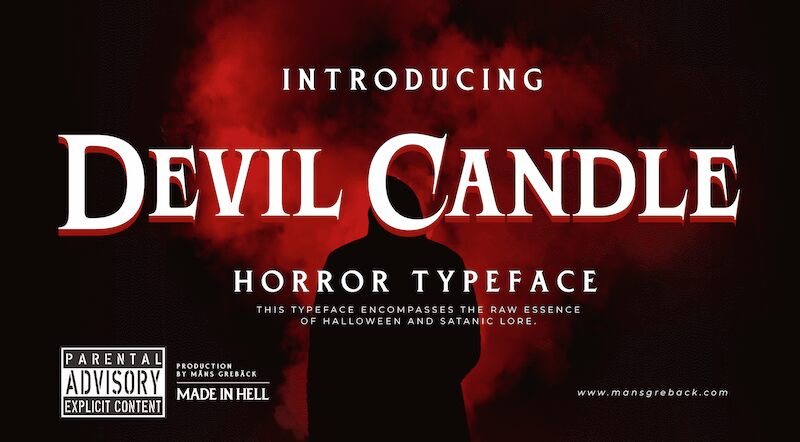
Devil Candle Alt PERSONAL USE Regular
Devil Candle Alt is an eerie and haunting font style designed by Mans Greback. Its refined serif characters are perfect for adding a touch of spookiness to your Halloween projects. The font family, Devil Candle, offers a variety of widths ranging from narrow to wide, allowing you to choose the perfect fit for your design needs.
With its symphony of sinister whispers, this font evokes the murky depths of hell and reflects the flickering flames of a devil's candle. Whether you're creating party invitations, haunted house flyers, or spooky social media posts, Devil Candle Alt is sure to bring an extra dose of fright to your Halloween-themed projects.